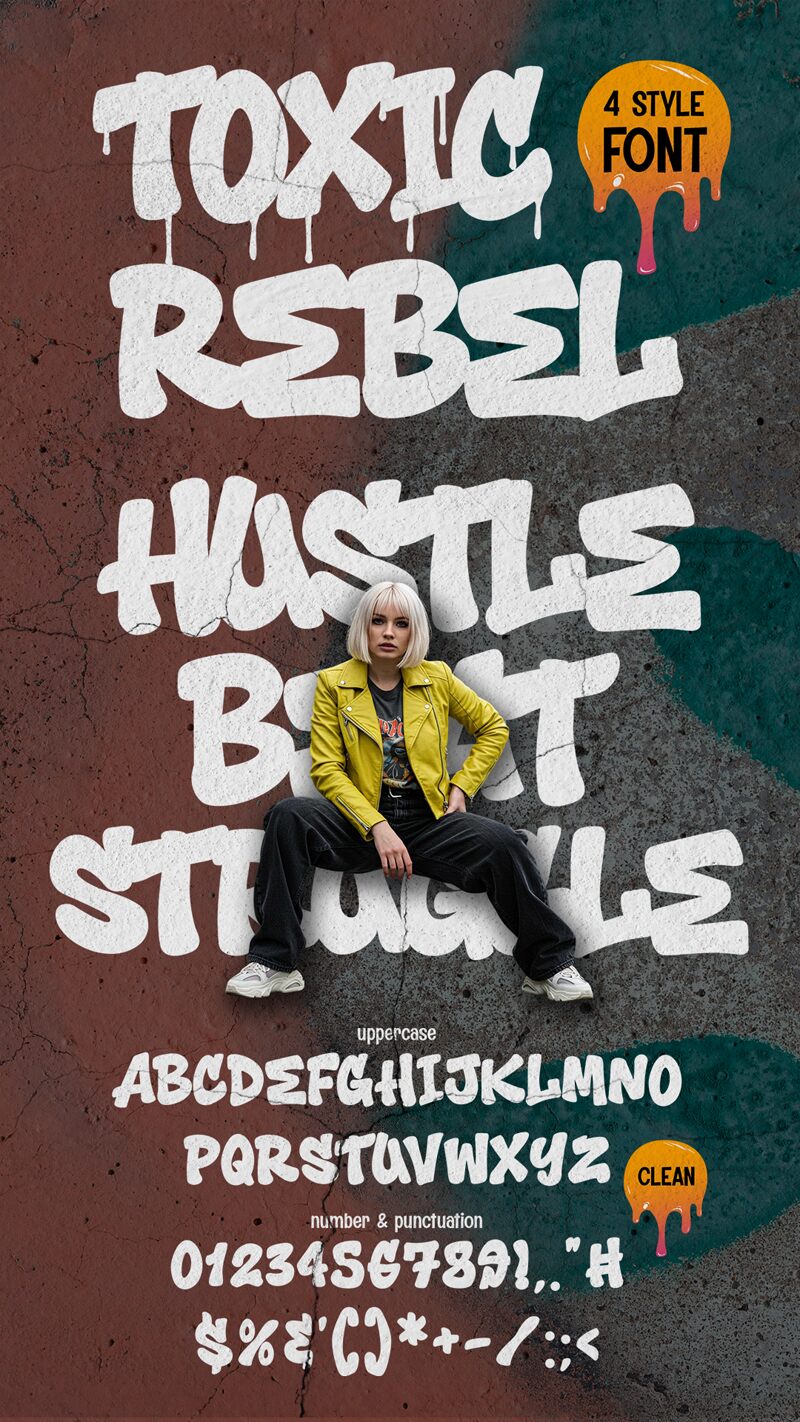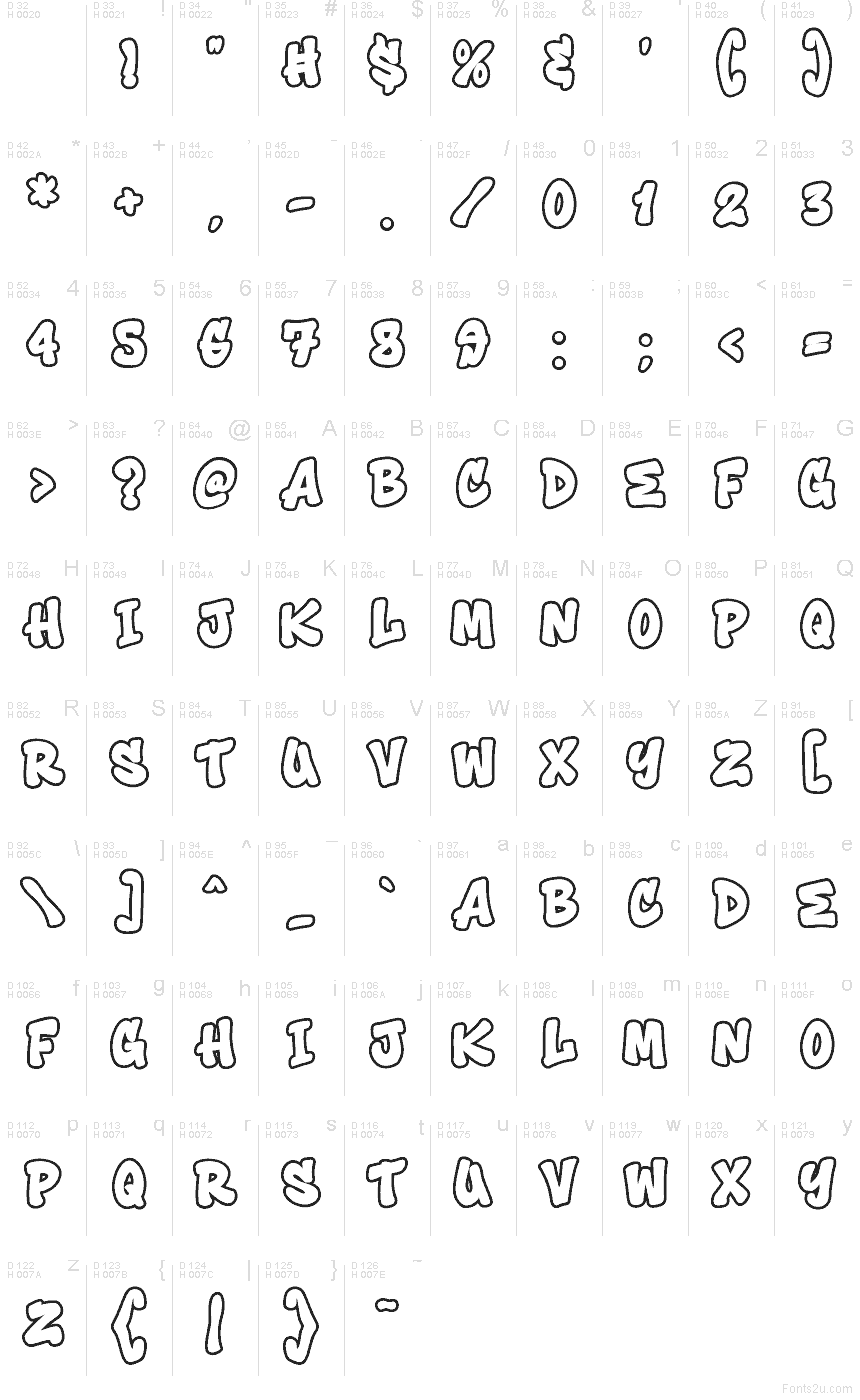
Toxic Rebel Outline Outline
Toxic Rebel Outline font by Muhammad Panji Ramdhani of Sipanji x Cikareotype brings the Toxic Rebel font family to life with puffy, marker-fat letterforms drawn as clean outlines, like fresh graffiti sketched on a wall before the paint goes in. The rounded bubbles keep it playful, while the open centers leave breathing room for color, texture, or photos to show through. It’s a free graffiti font, and the typeface stays readable even when it’s loud.
Using Toxic Rebel Outline, you’ll get instant attitude on streetwear logos, sticker packs, skateboard graphics, music posters, YouTube thumbnails, event flyers, and punchy social headers. Let it run big so the outline feels crisp; adding a bright fill or a subtle grain can make it look hand-inked. For an easy pairing, set the supporting copy in a plain condensed sans so this free font gets the spotlight.